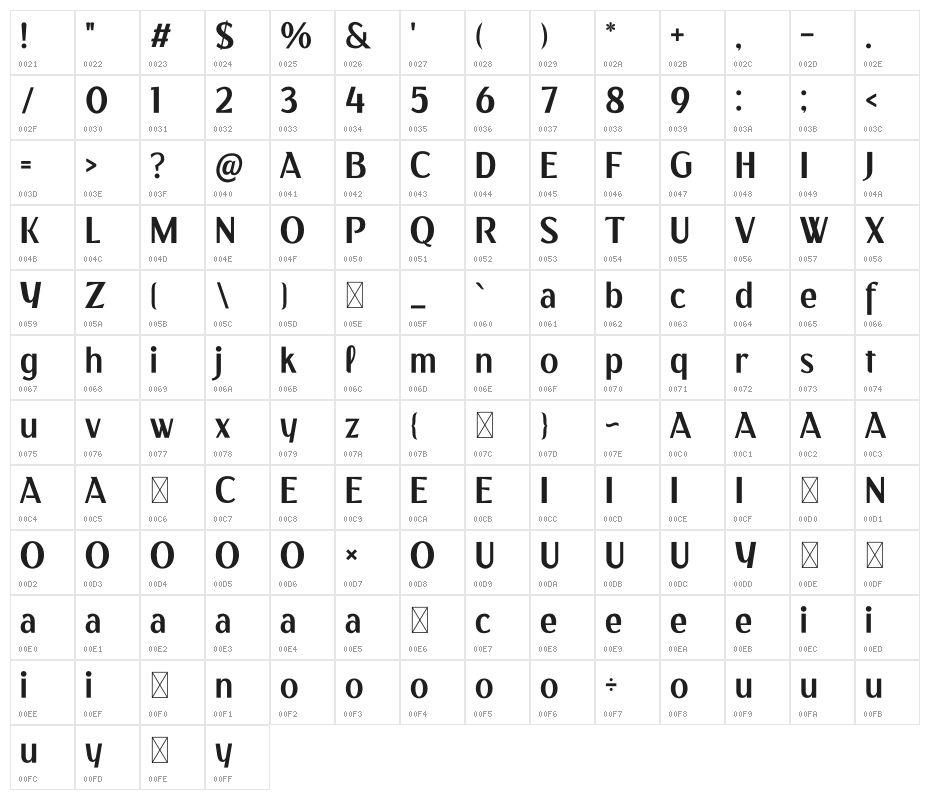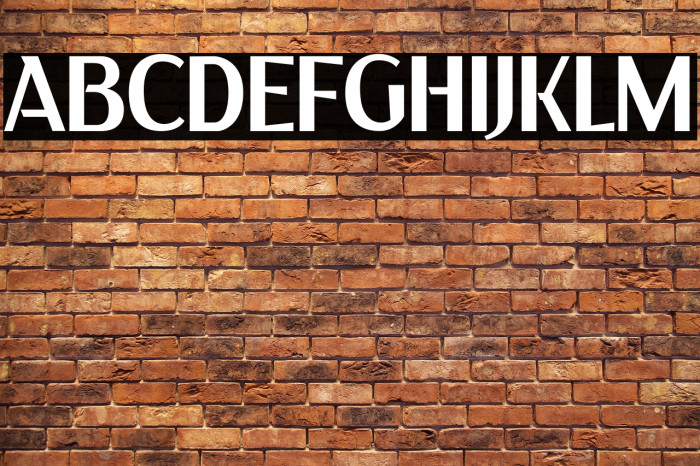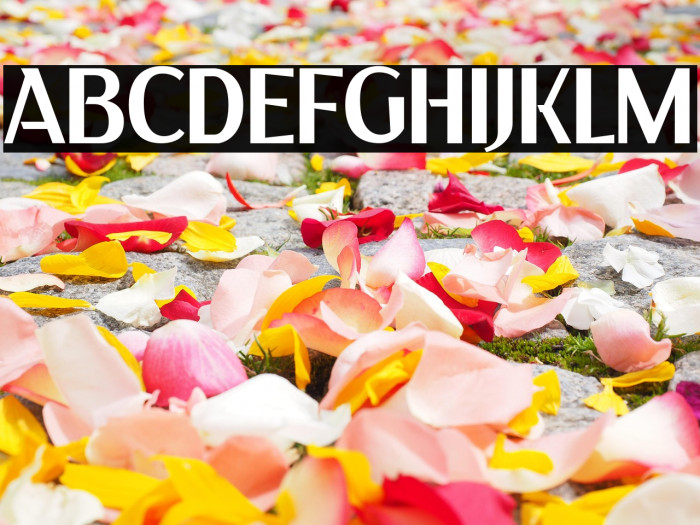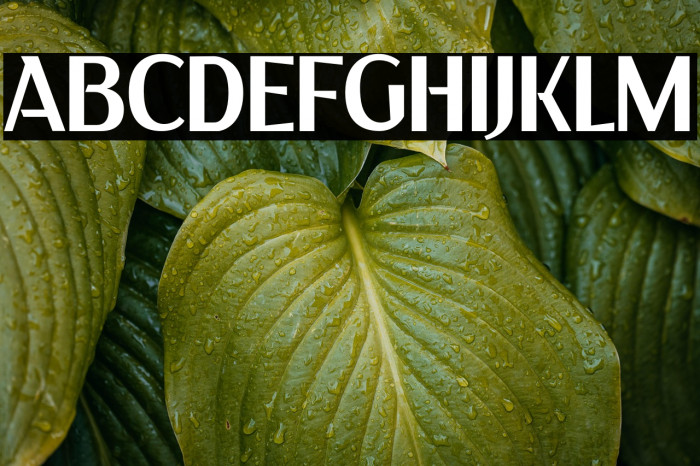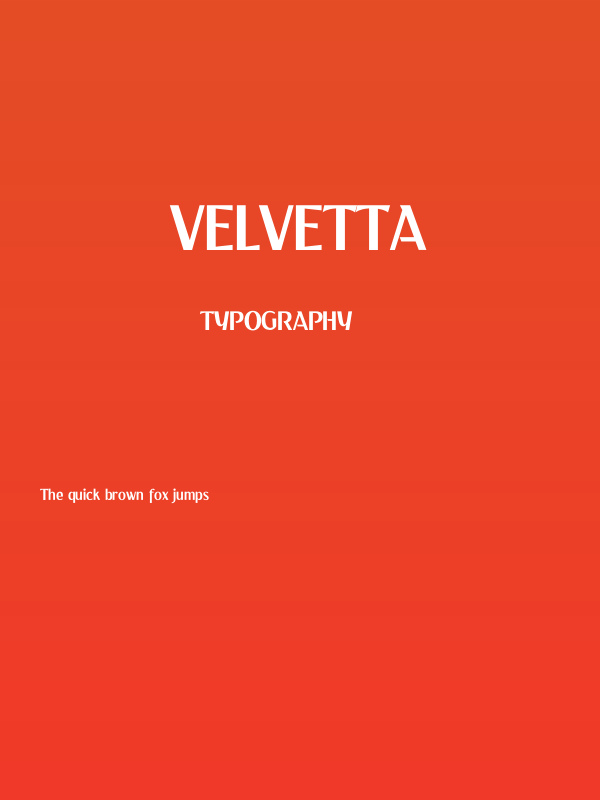
Velvetta Font
Velvetta Description
A modern, sans-serif font with a clean and slightly condensed appearance. It features high contrast between thick and thin strokes, giving it a dynamic and elegant look.
| Proposed Projects | Branding, editorial design, advertising. |